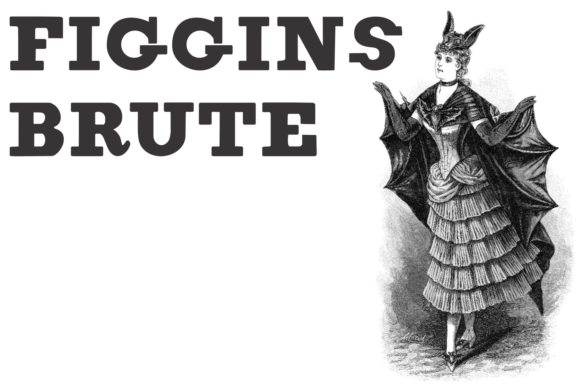
Figgins Brute Family Font
Behold, the Figgins Brute Family Font, a testament to the grandeur of display fonts. Its inception marked a pivotal moment in typographic history, earning its place as a titan among typefaces. Inspired by the bold handbills and advertising posters of the era, this font exudes an aura of strength and authority, capturing the essence of distant communication.
Journey back to the early 1800s, when Figgins Brute Family Font emerged from the creative forge of Intellecta Design. This capital titling face, complete with numerals, was erroneously labeled as an "antique" or "roman" in Figgins' specimen book of 1817. However, its true nature lies in its bold, nearly monoline construction and squared serifs - a testament to its unyielding presence.
In a world saturated with typefaces, Figgins Brute Family Font stands out as a beacon of boldness and impact. Its thick strokes and squared serifs demand attention, ensuring your message cuts through the clutter and reaches its intended audience. Whether you're crafting posters, signage, or eye-catching headlines, this font commands attention and leaves a lasting impression.
Harness the power of Figgins Brute Family Font to unleash your creativity and captivate your audience. Let its bold strokes and commanding presence elevate your designs to new heights. Join the ranks of those who recognize the transformative impact of this iconic typeface - a true masterpiece in the world of display fonts.